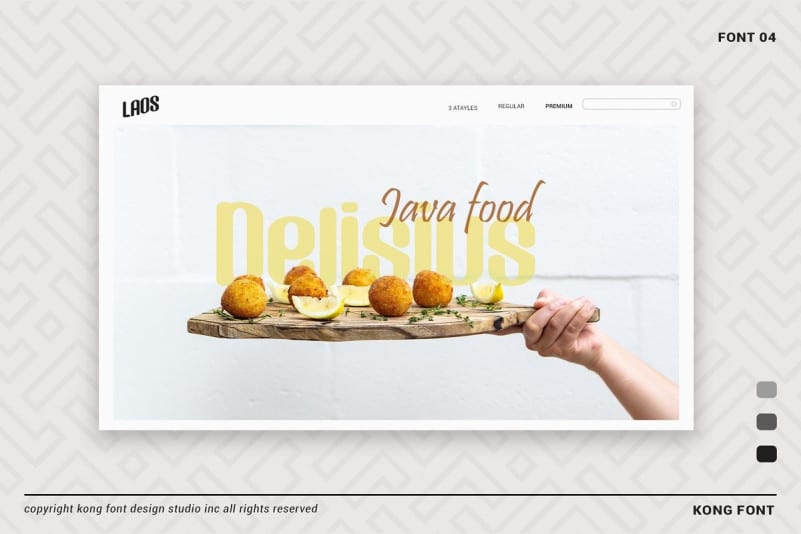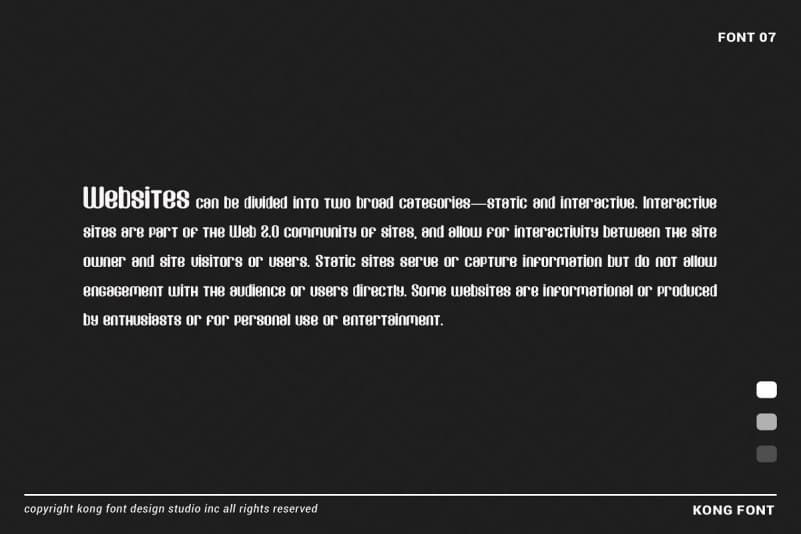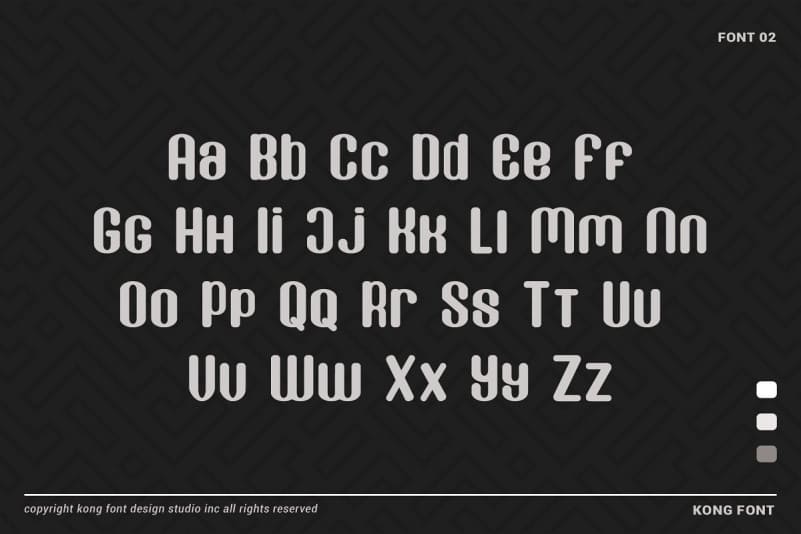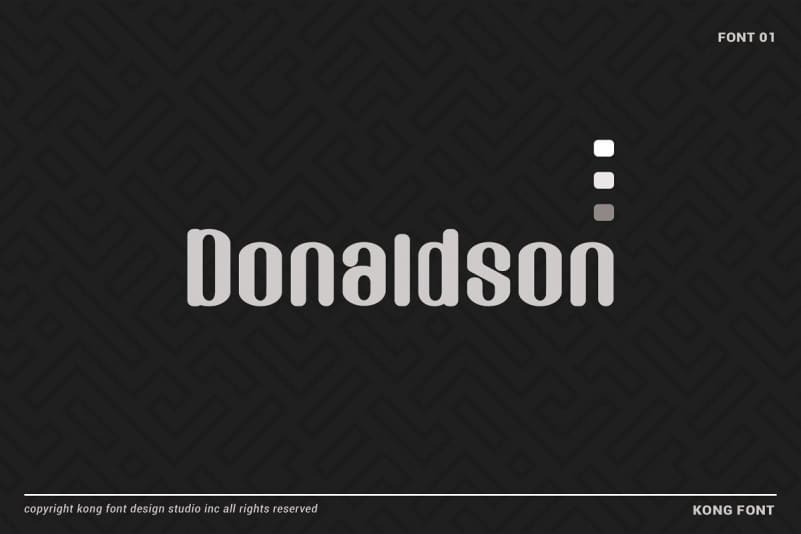
Introducing Donaldson Display Font. It’s a uniquely hand-lettered sans-serif typeface that compliments and brings a unique touch to projects. It is design and shared by GemesFont. Very suitable as to make adorable invitation for wedding, birthday, special day and also perfect for your other projects branding.
Donaldson